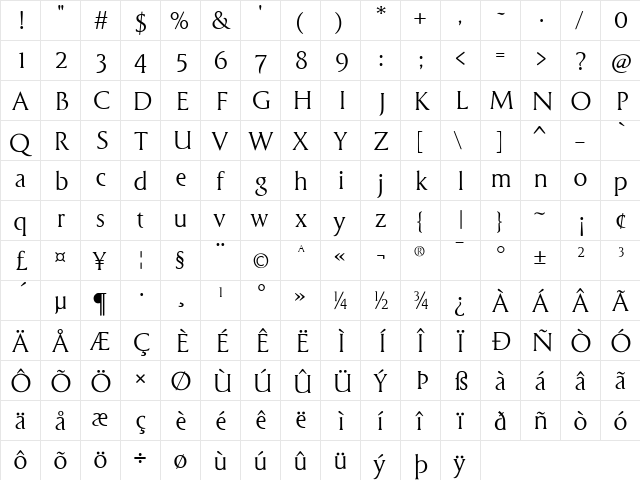
Cyan Regular Font Preview
Cyan Regular
Cyan Regular Font Details
| Foundry | Robbie de Villiers, |
Design Context for Cyan Typeface
Cyan is a composed and adaptable typeface that performs quietly and consistently across a wide range of design contexts.